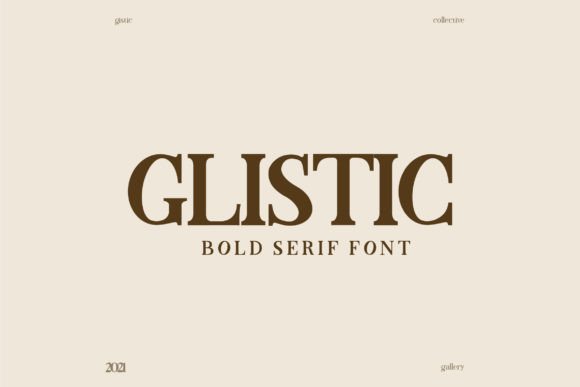
The Art of Timeless Typography
As a designer, there’s no greater thrill than stumbling upon the perfect font for a project. It’s that moment when the words come alive, and the message is conveyed with precision and elegance. For me, that moment came when I discovered the Glistic Font – a robust serif font that embodies the essence of classic typography.
| 👤 Author | firstype studio |
Glistic Font is a masterful blend of bold aesthetics and traditional charm, making it the perfect choice for designers seeking a timeless typeface. Its versatility and elegance make it an ideal option for magazine layouts, large title posters, and various design projects. Whether you’re a seasoned designer or just starting out, Glistic Font is a valuable asset to have in your toolkit.
Glistic Font Key Features
- Unique Characteristics: Glistic Font features a unique blend of geometric and organic shapes, creating a distinctive visual identity that is both modern and timeless.
- Script Support: The font includes a comprehensive set of ligatures, alternates, and swashes, making it an ideal choice for designers who need to create complex, high-end typography.
Glistic Font Review
I recently had the chance to work with the Glistic font, and I’m excited to share my honest thoughts on this unique typeface. ✨ One of the things that stood out to me was the Glistic font’s versatility. It’s designed to work seamlessly in a variety of contexts, from body text to display headings. I was impressed by how well it adapts to different font sizes and styles.
Another aspect that I appreciated was the Glistic font’s x-height. ✨ It’s remarkably consistent, making it a great choice for body text where readability is key. Additionally, the font’s rounded edges give it a friendly, approachable feel that’s perfect for branding and marketing materials.
- ⚠️ The Glistic font may not be the best choice for complex, technical content. Its rounded edges can make it difficult to read in certain situations.
- ⚠️ Some users may find the font’s weight to be inconsistent, particularly in smaller font sizes.
Overall, I think the Glistic font is a solid addition to any designer’s toolkit. ✨ While it may have some limitations, its versatility and friendly feel make it a great choice for a wide range of projects. I’d definitely recommend giving it a try if you’re looking for a typeface that’s both stylish and readable.
The Glistic font is ideal for:
- Designing modern and sleek logos.
- Creating elegant and sophisticated typography.
- Adding a touch of sophistication to presentations and documents.